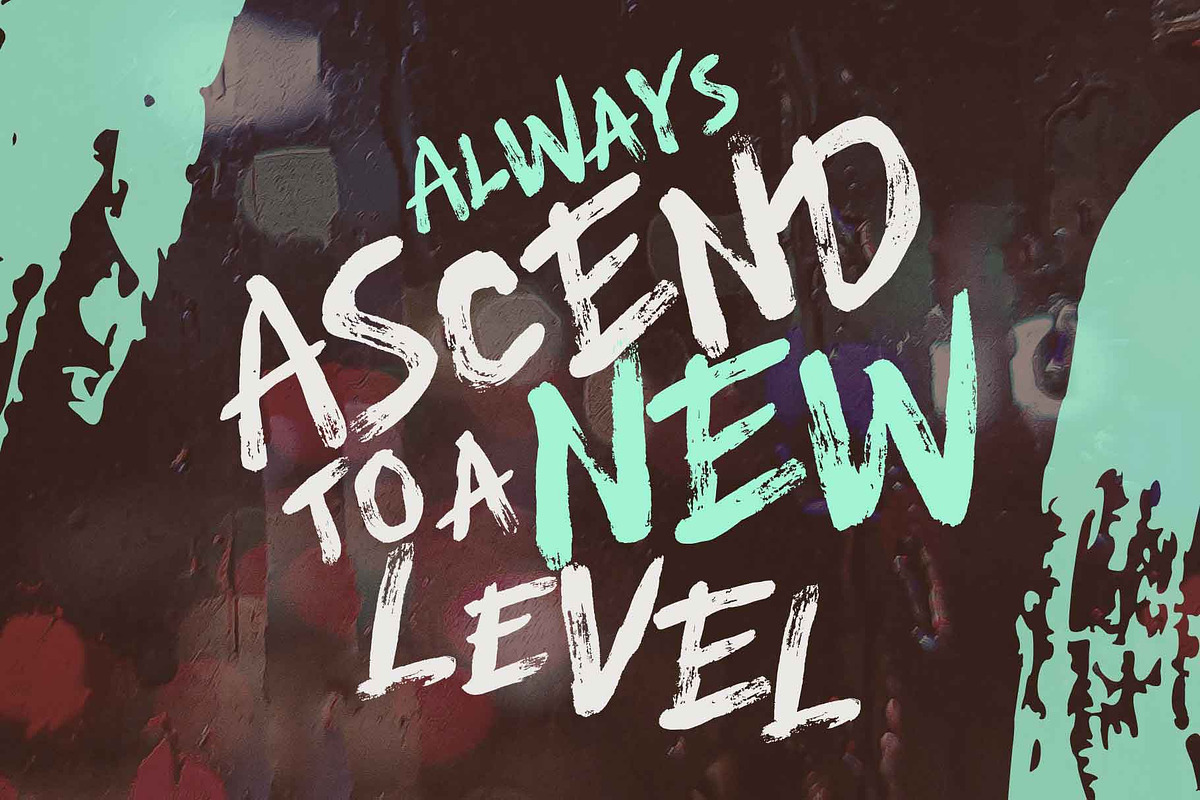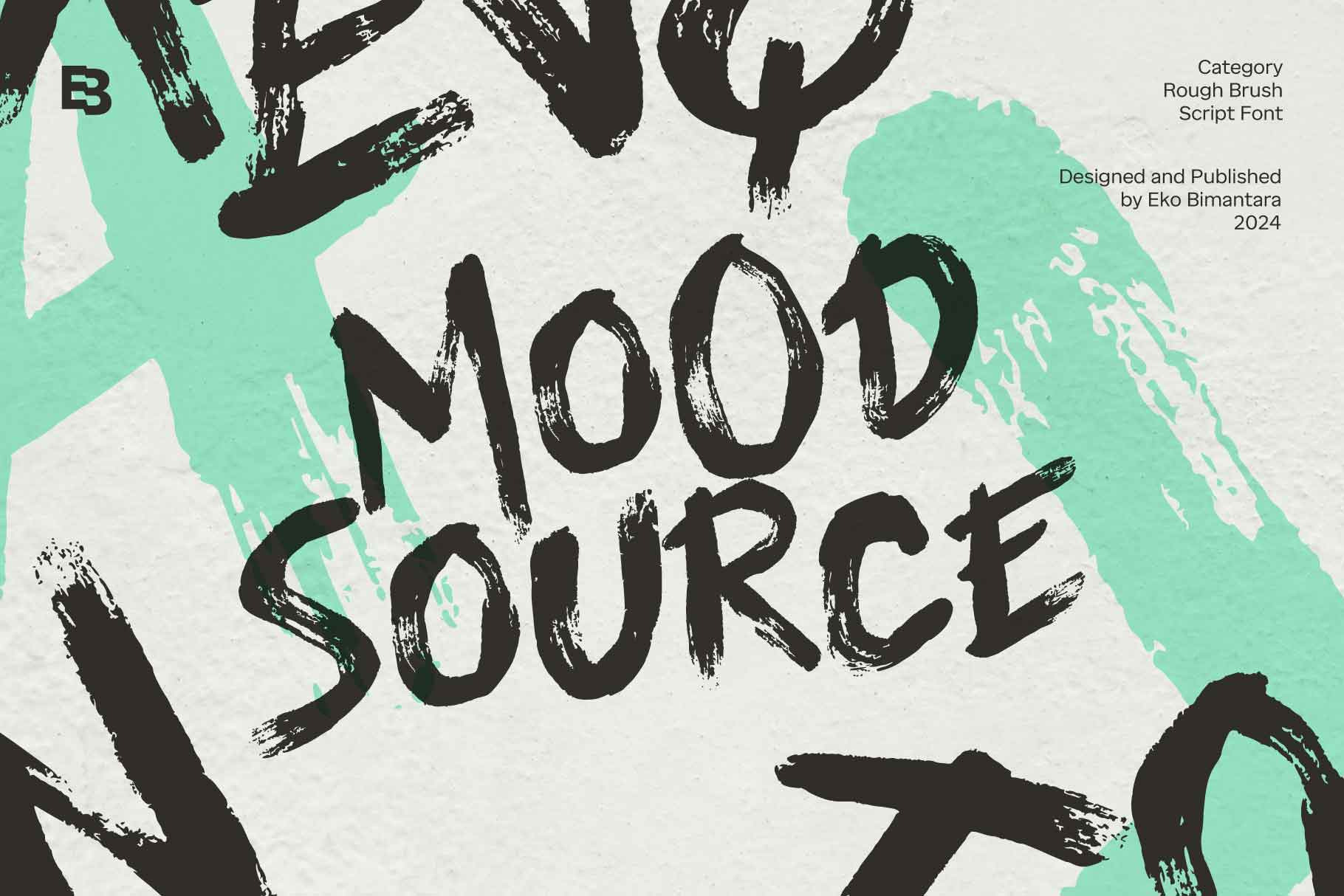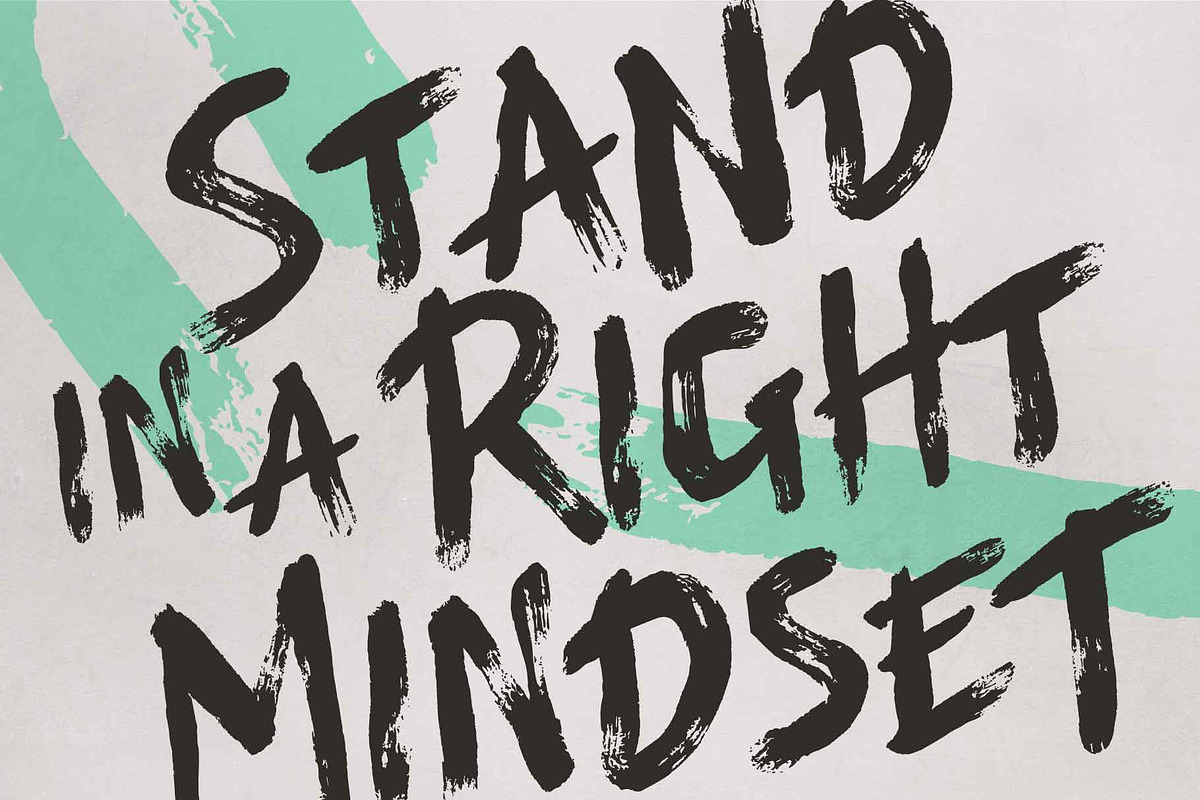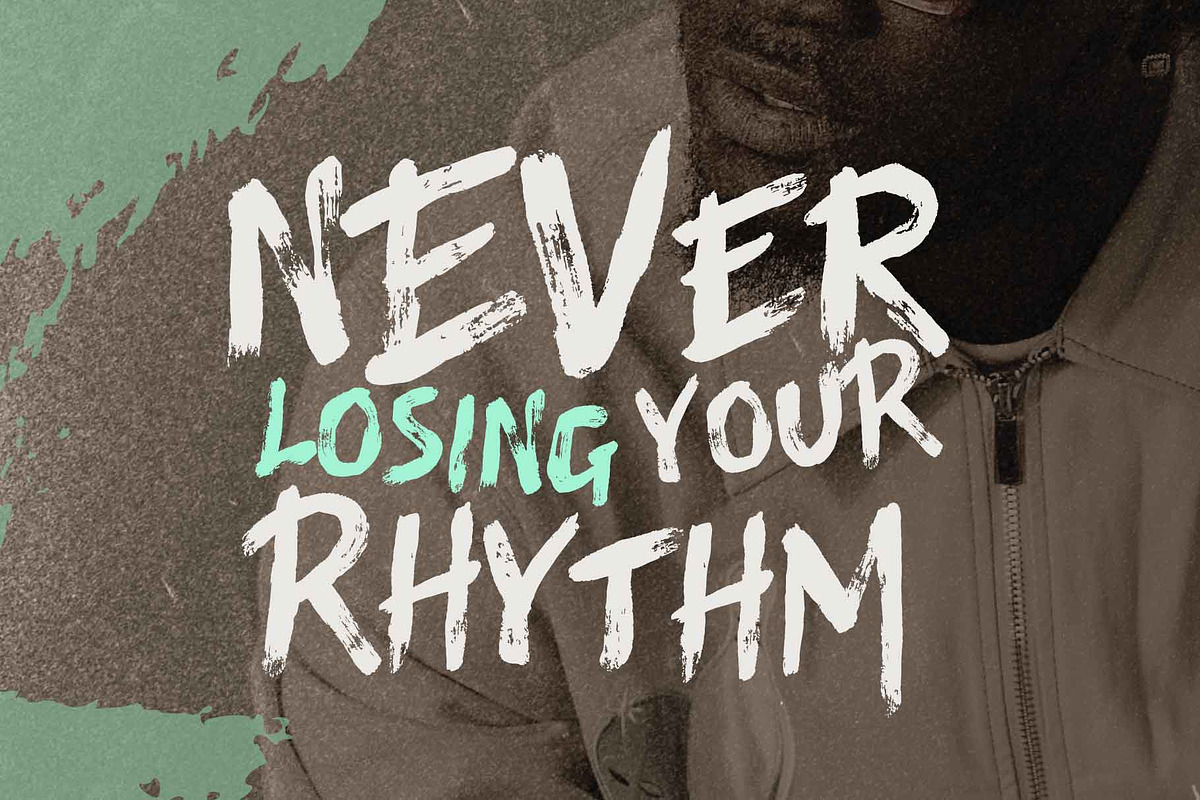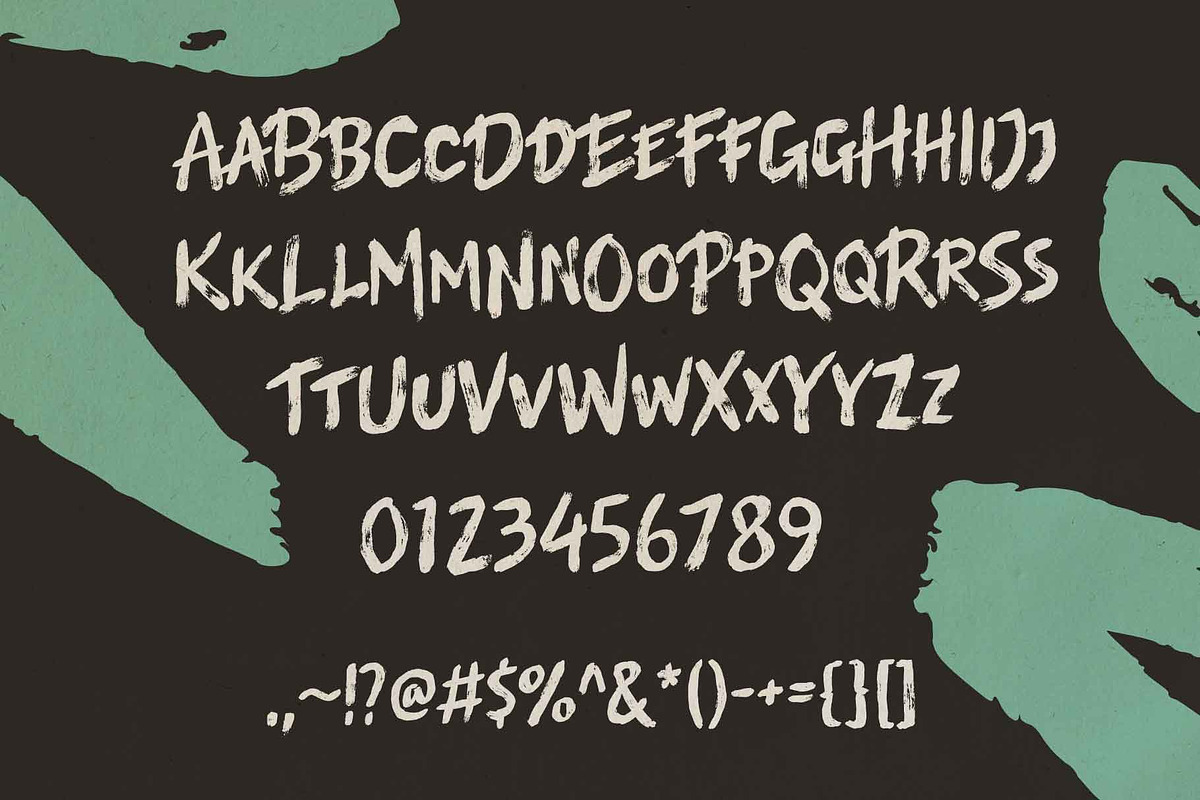
Mood Source; Rough Script Font
Mood Source is a rough brush all-caps script font that exudes an expressive and raw energy. Its gritty texture and bold style make it perfect for branding projects with a grunge or rugged theme, as well as impactful titles and product designs. Ideal for large-size displays, headers, and titles, it seamlessly fits into various design applications such as websites, brand identities, product packaging, and broad graphic design projects that call for a bold, raw, and edgy aesthetic.